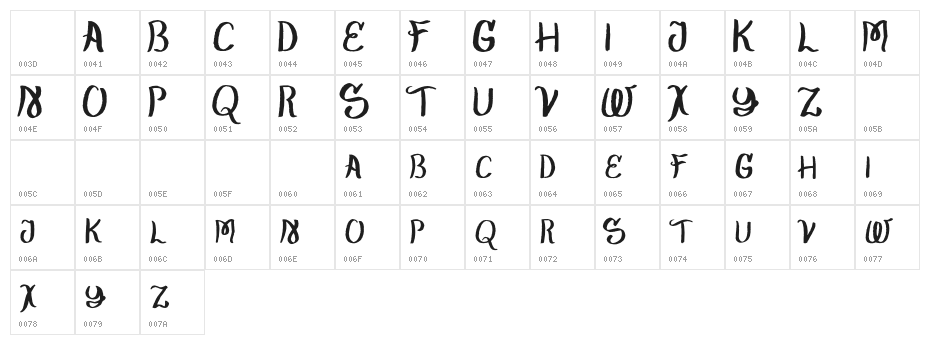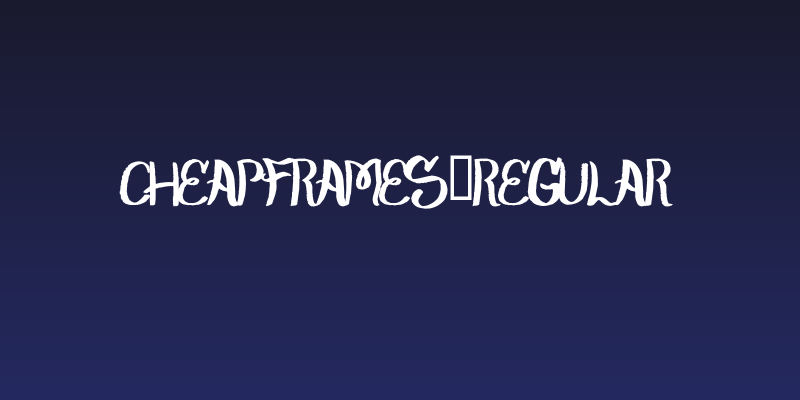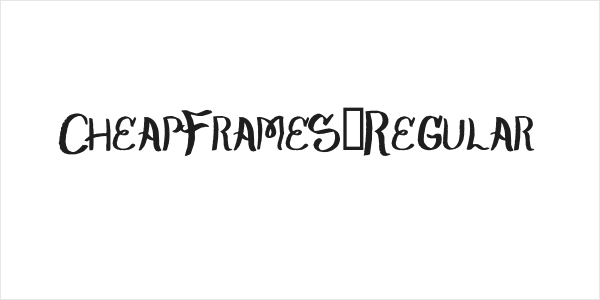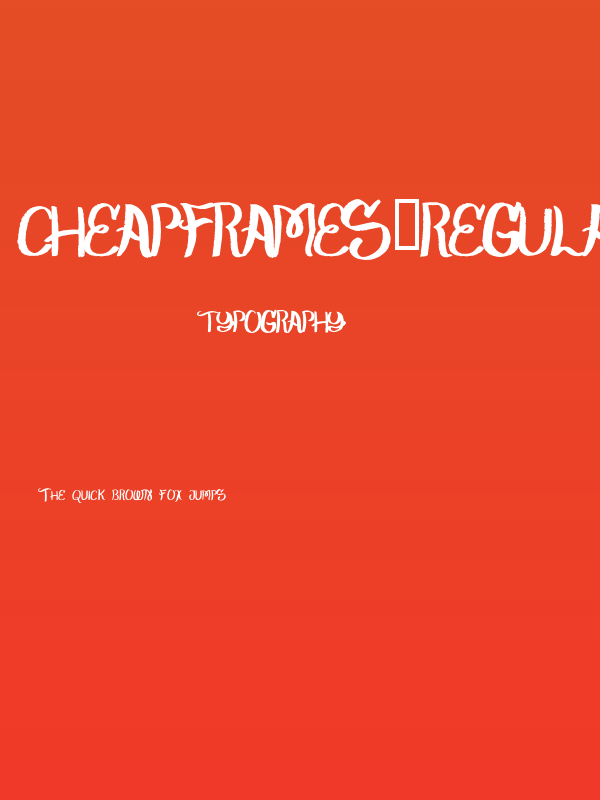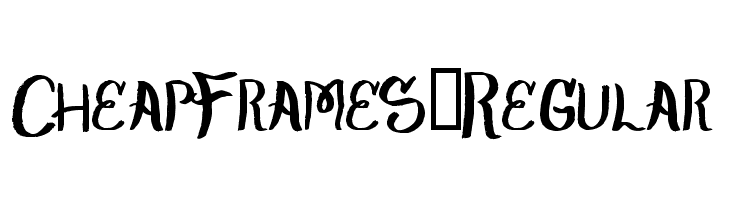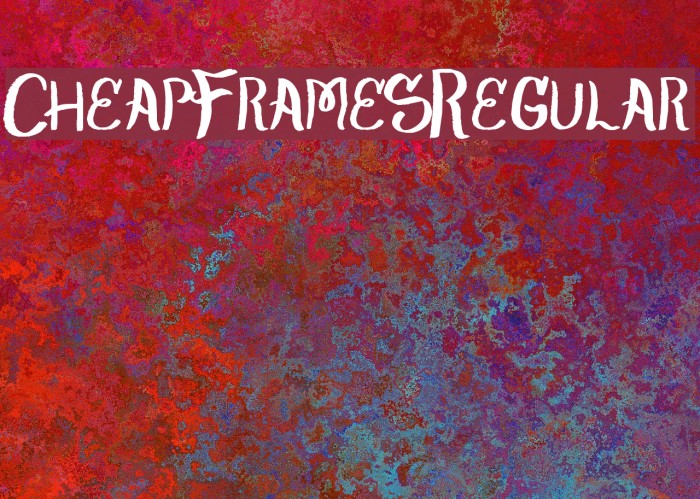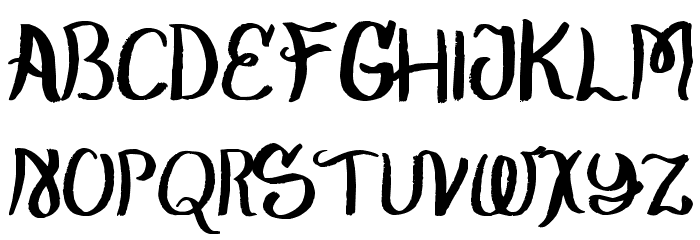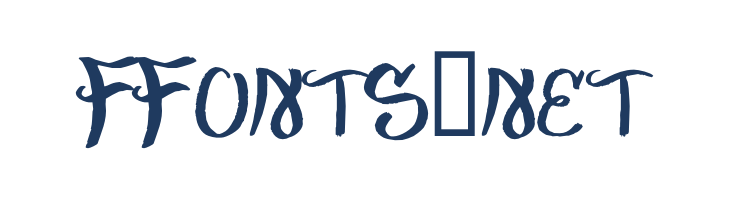
CheapFrames-Regular Font
CheapFrames-Regular Description
This font exhibits a bold and expressive style with a hand-drawn appearance. The characters are crafted with a brush-like texture, giving them a dynamic and artistic flair. The uppercase letters are particularly striking, with exaggerated curves and varying stroke widths that add to the font's unique personality. The lowercase letters maintain the same energetic style, ensuring consistency across the typeface. The font's overall look is both playful and edgy, making it suitable for creative projects that require a strong visual impact. The lack of special characters and numbers suggests a focus on artistic expression rather than functionality.
| Overall Style | Artistic, Expressive |
| Use Case | Headlines, Artistic projects |
| Proposed Projects | Ideal for posters, album covers, artistic branding, and creative advertising. |